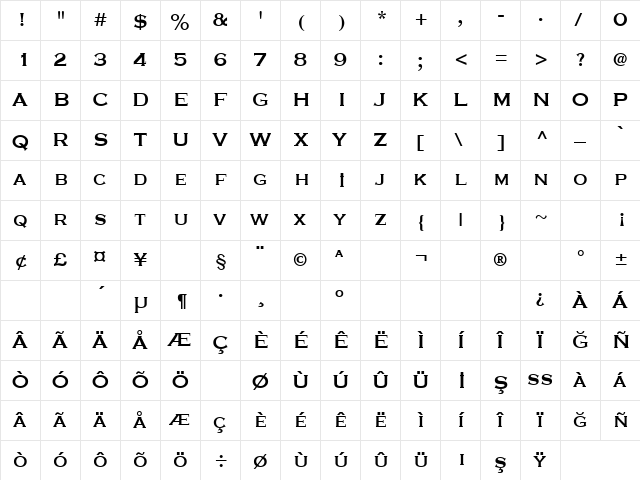
TR Schubert Bold
Design Context for TR Schubert Typeface
TR Schubert offers clean, dependable letterforms without strong stylistic allegiance, making it a practical choice for designers who need flexibility. The heavy weight commands attention and anchors typographic hierarchies.